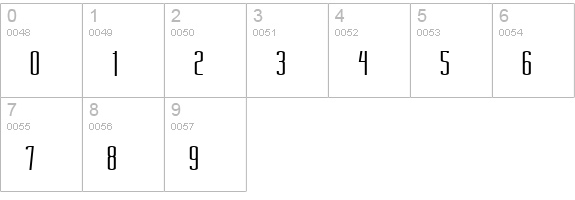
Long Cool Mother Font Details
Long Cool Mother font is a stylish and modern typeface that exudes sophistication and coolness. Its sleek lines and unique design make it perfect for a variety of projects, from branding to editorial design. With its tall and slender letterforms, Long Cool Mother font adds a touch of elegance to any text or headline. Best of all, Long Cool Mother font is completely free to download at FontsMarket.com. This means you can use this eye-catching font in your projects without any cost, making it a fantastic choice for designers on a budget. Whether you're working on a poster, logo, or website design, Long Cool Mother font is sure to make a statement and elevate your work to the next level. Download it today and add a touch of sophistication to your designs!